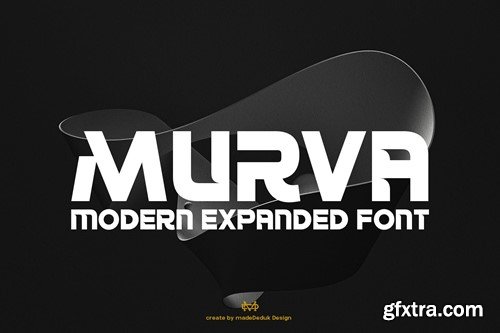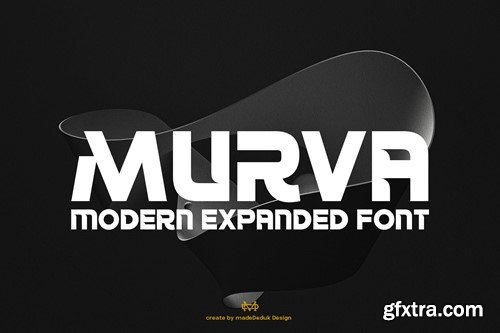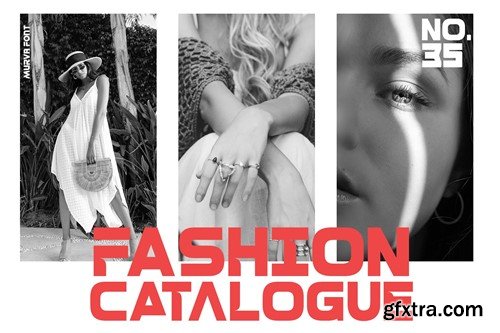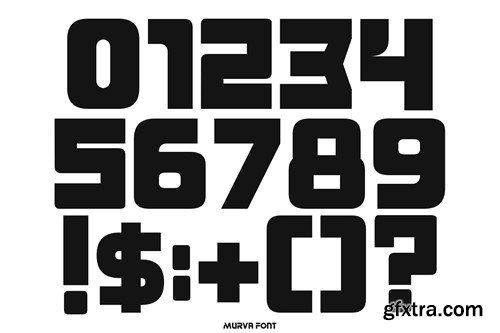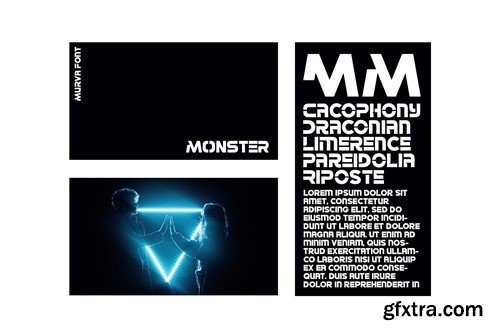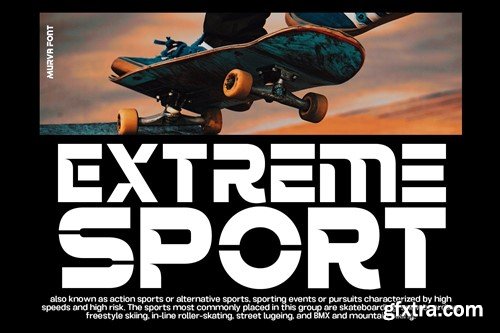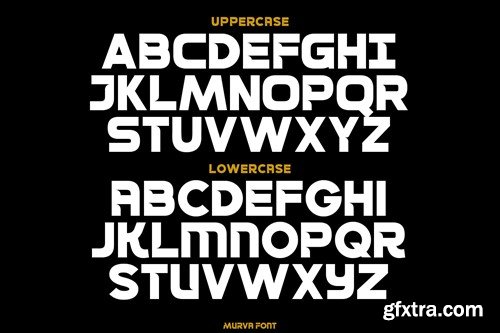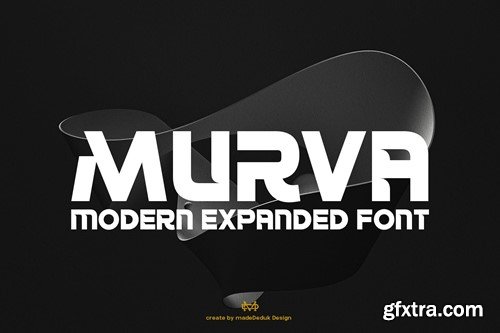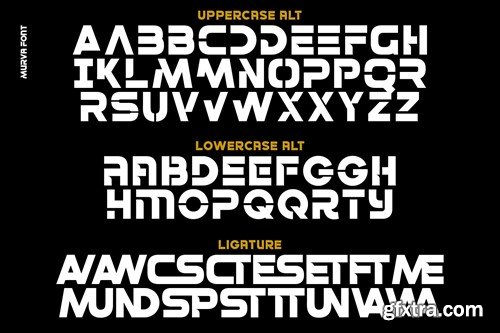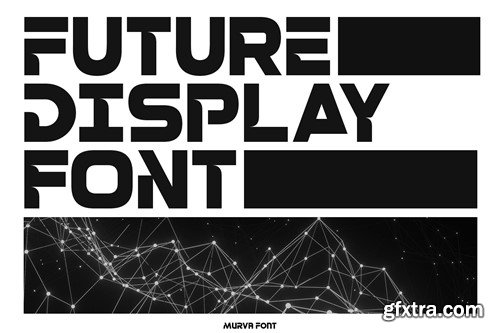
Murva - Expanded Font
Murva is a expanded font with single weight. You can explore and combine creating rhythm for comfortable reading. It allows multiple options when designing, adapting to different composition solutions. use this font for any branding, product packaging, invitation, quotes, headline, label, poster, logo etc. Feature Feel free to drop us a message any time and follow my shop for upcoming updates Hope you enjoy it.